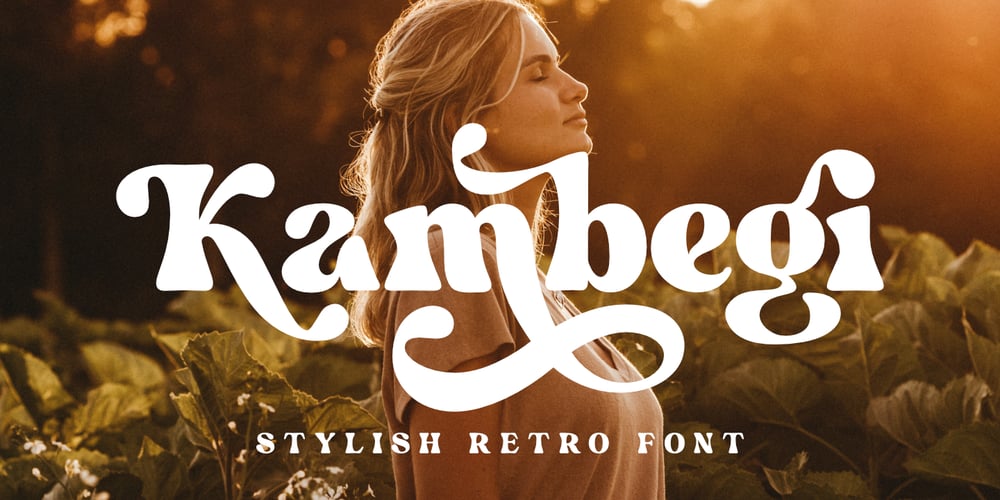
Kambegi Font Family was designed by Saiful Anwar and published by Sealoung. Kambegi contains 1 styles and family package options. Kambegi is a bold retro serif font with a casual feel and a clean, great modern retro aesthetic. Use this Kambegi serif font to add a special retro modern touch to any design idea you can think of.This font is PUA encoded which means you can access all glyphs and swashes easily via Character map or Character Viewer on mac!Feature : Uppercase & lowercase Numbers and punctuation Multilingual Alternates, swash & ligatures PUA encoded We highly recommend using a program that supports the OpenType feature and the Glyphs panel such as many Adobe and Corel Draw applications, so that you can view and access all variations of Glyphs.